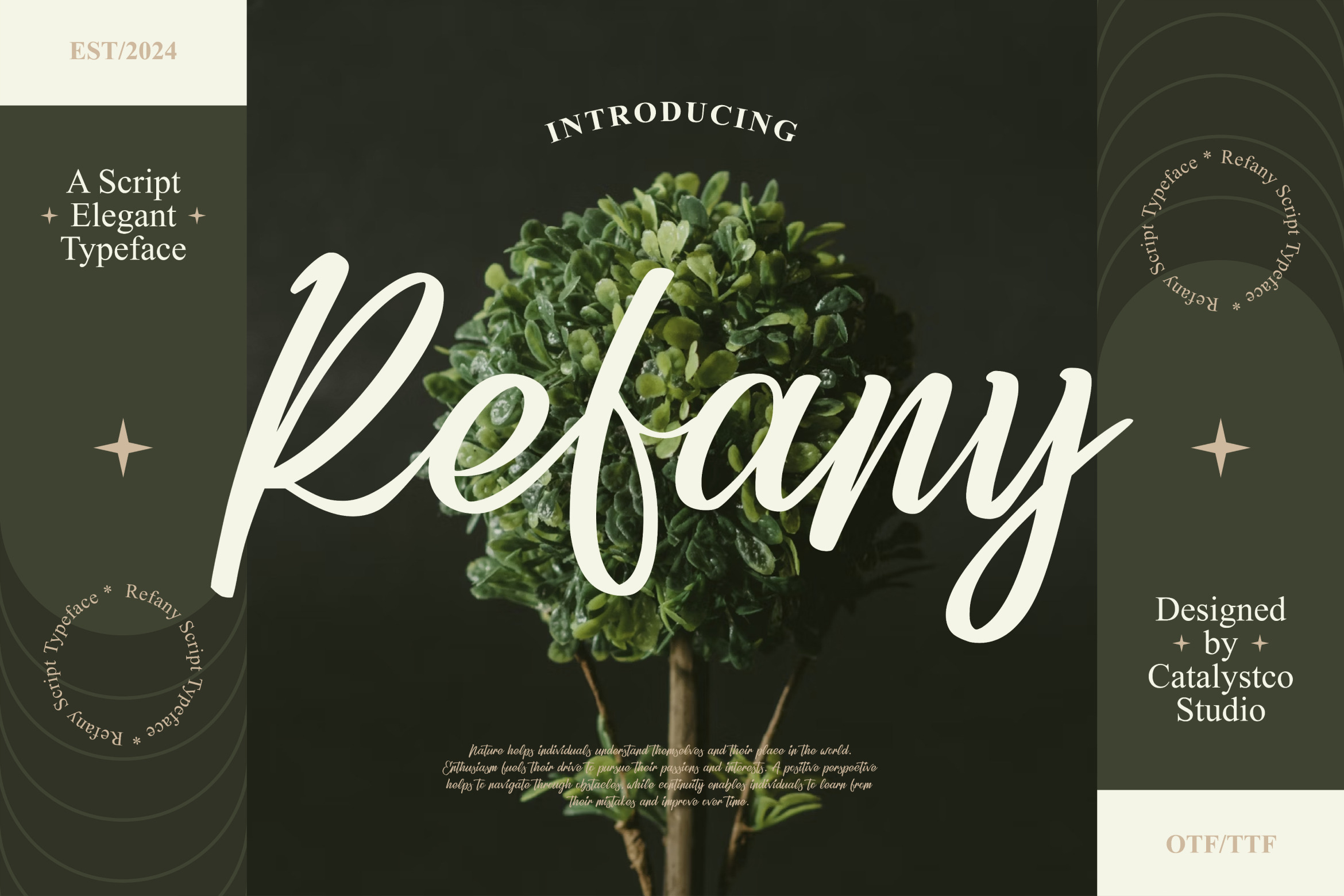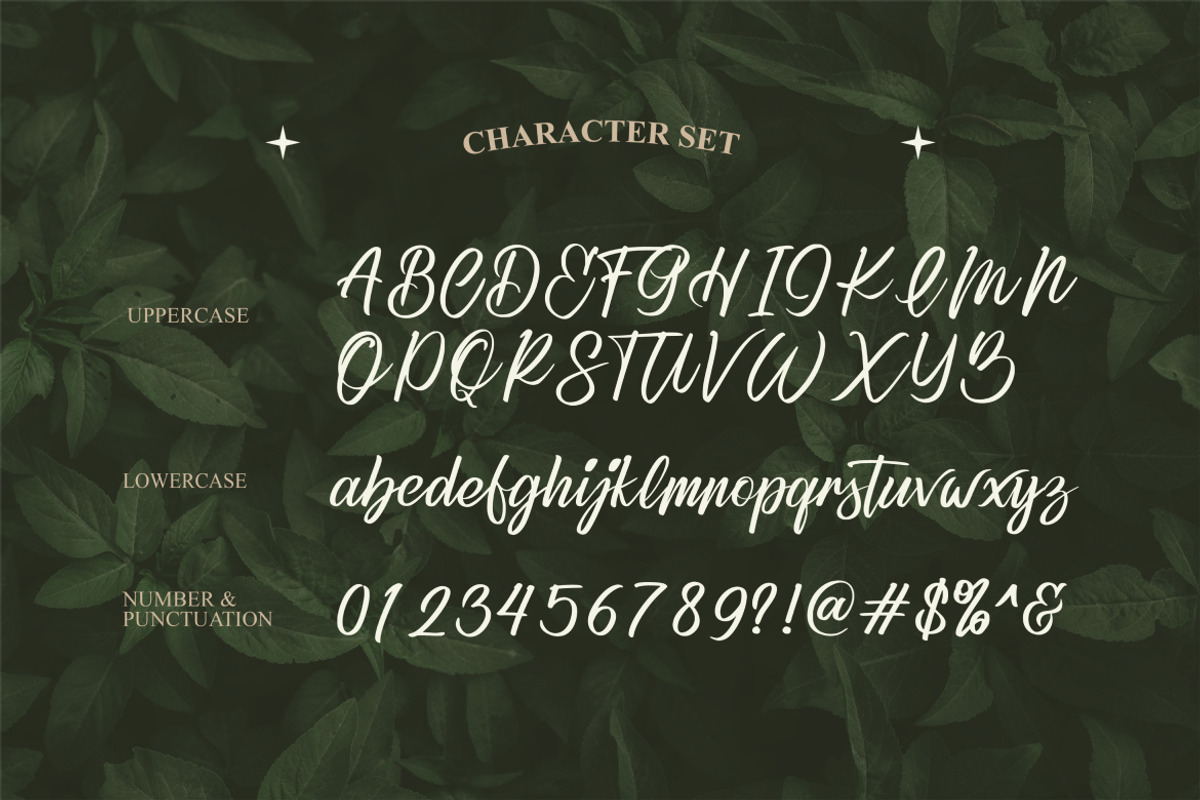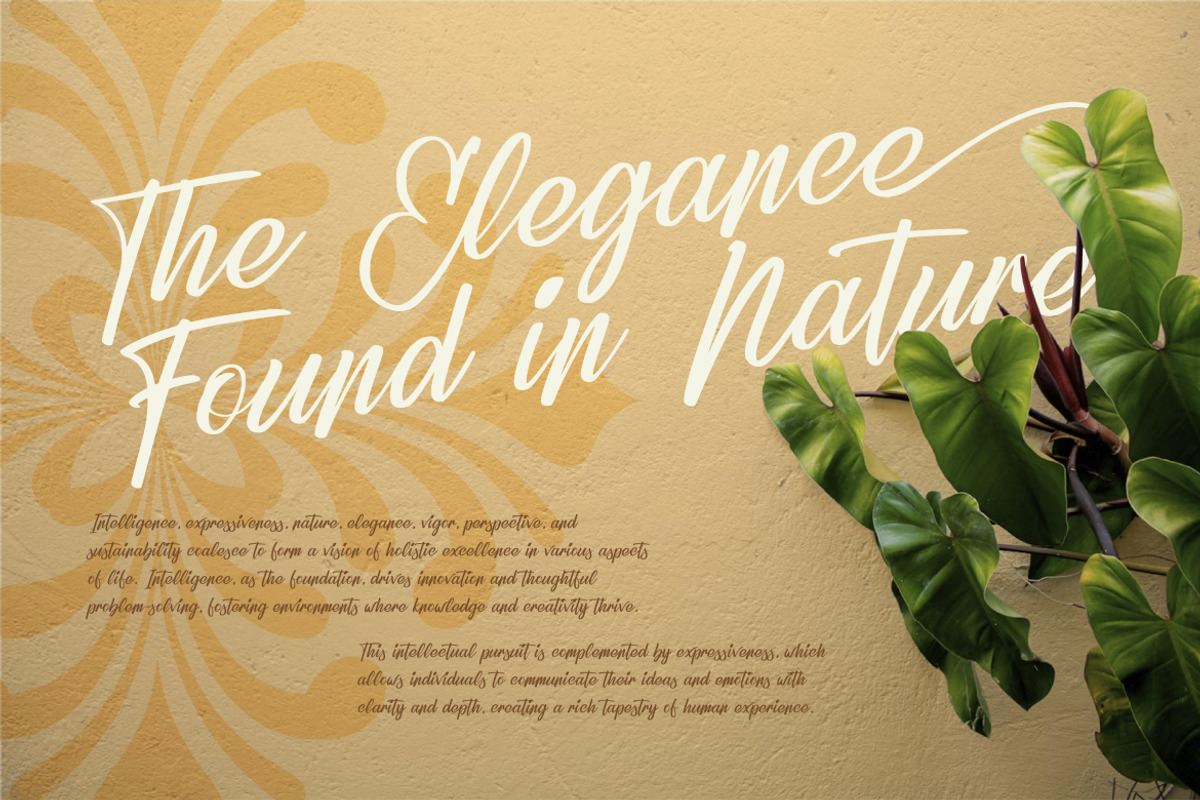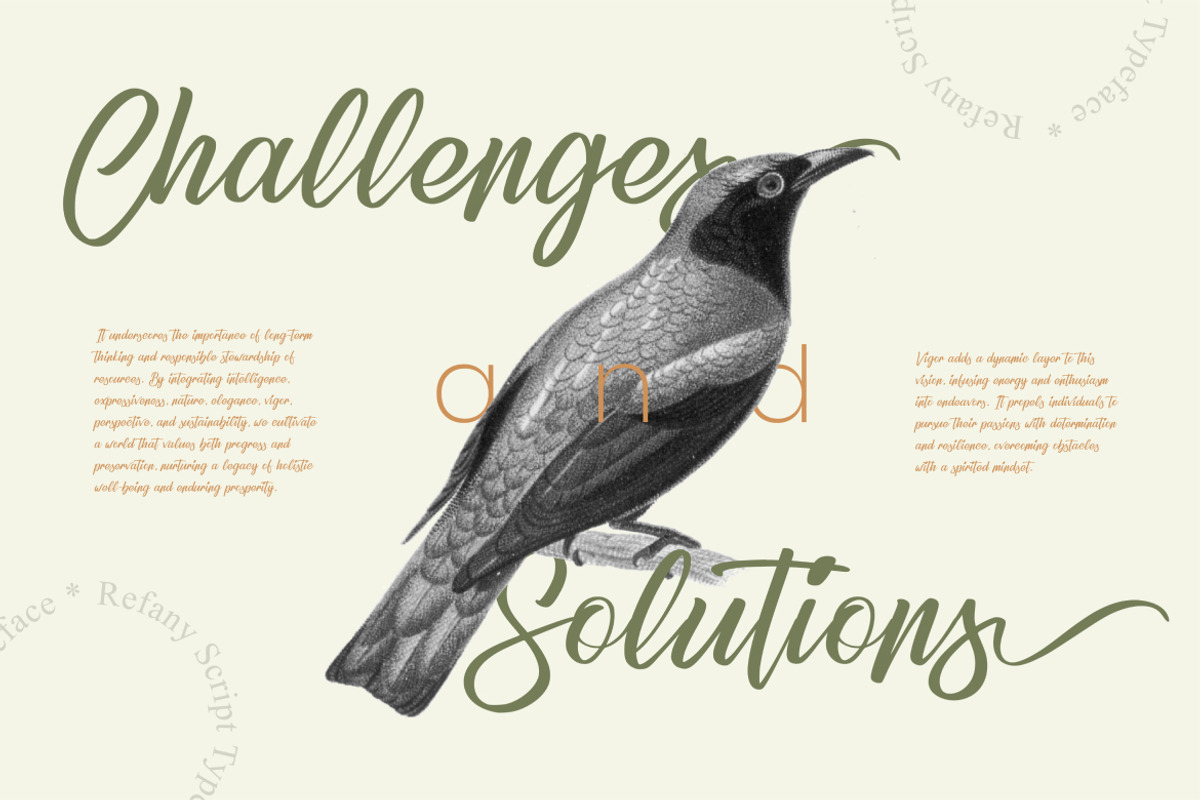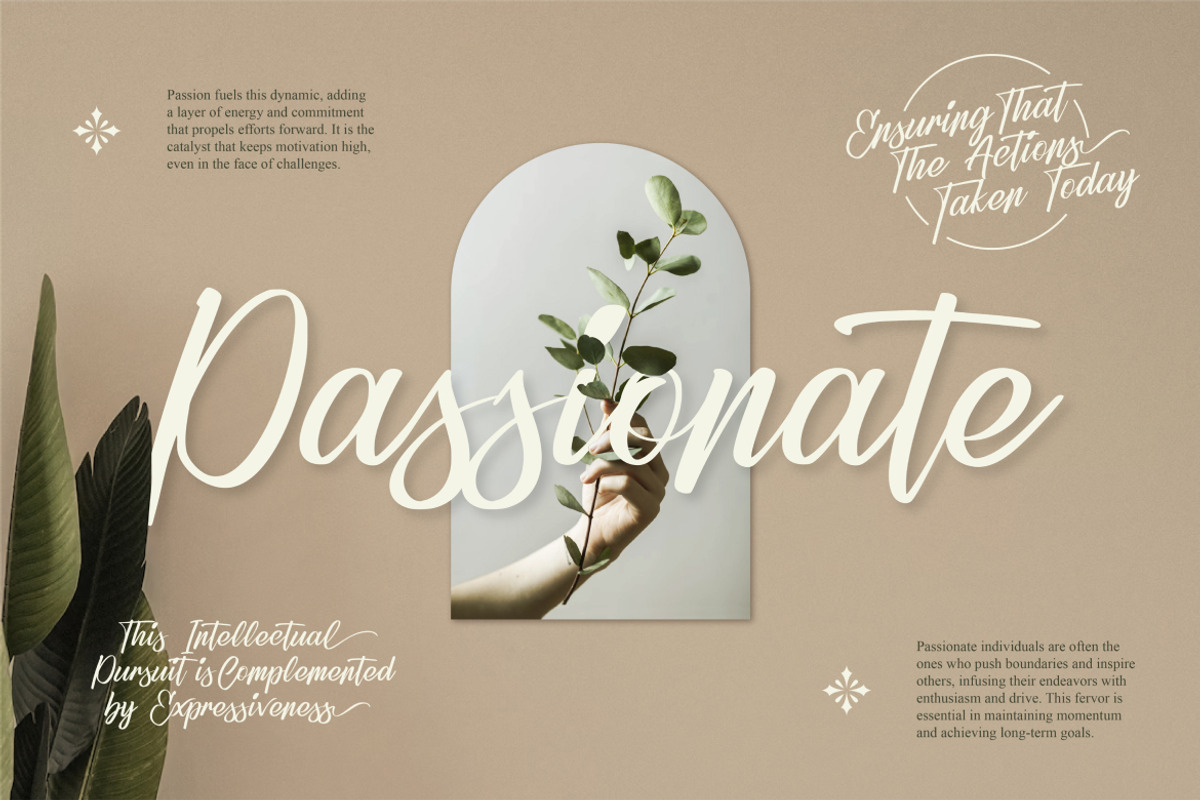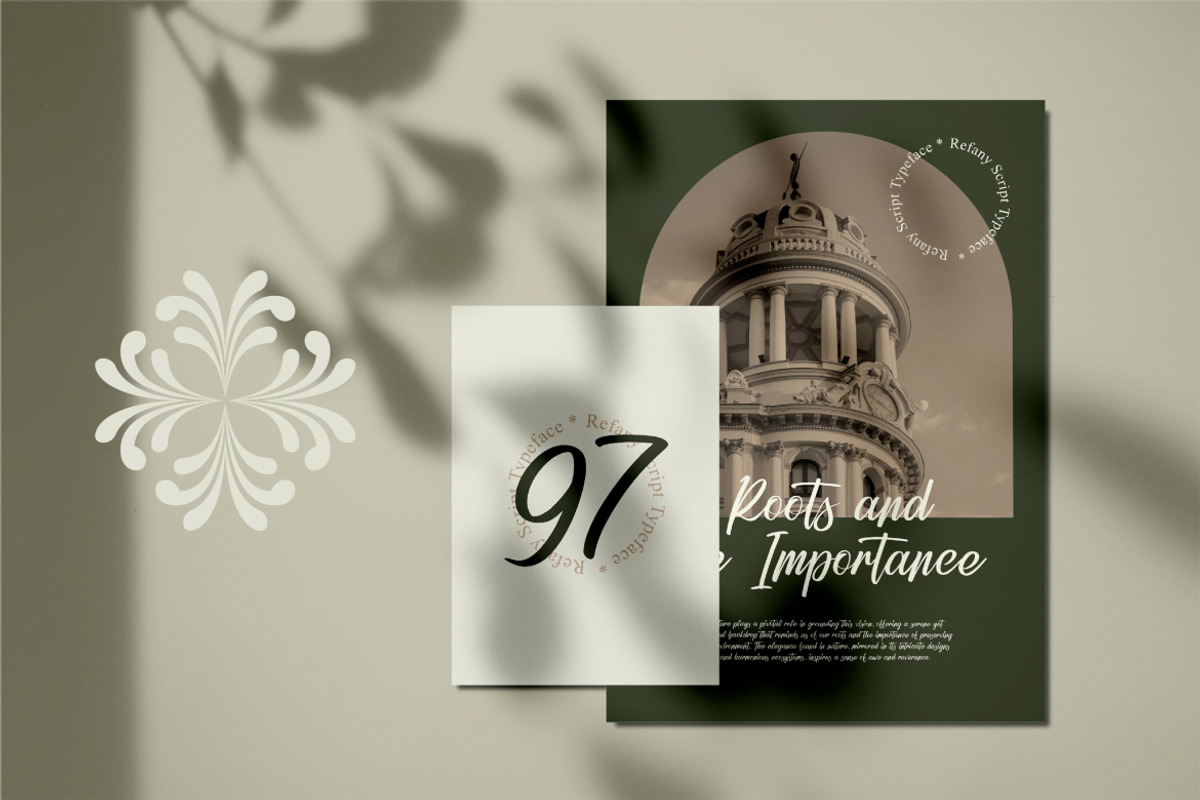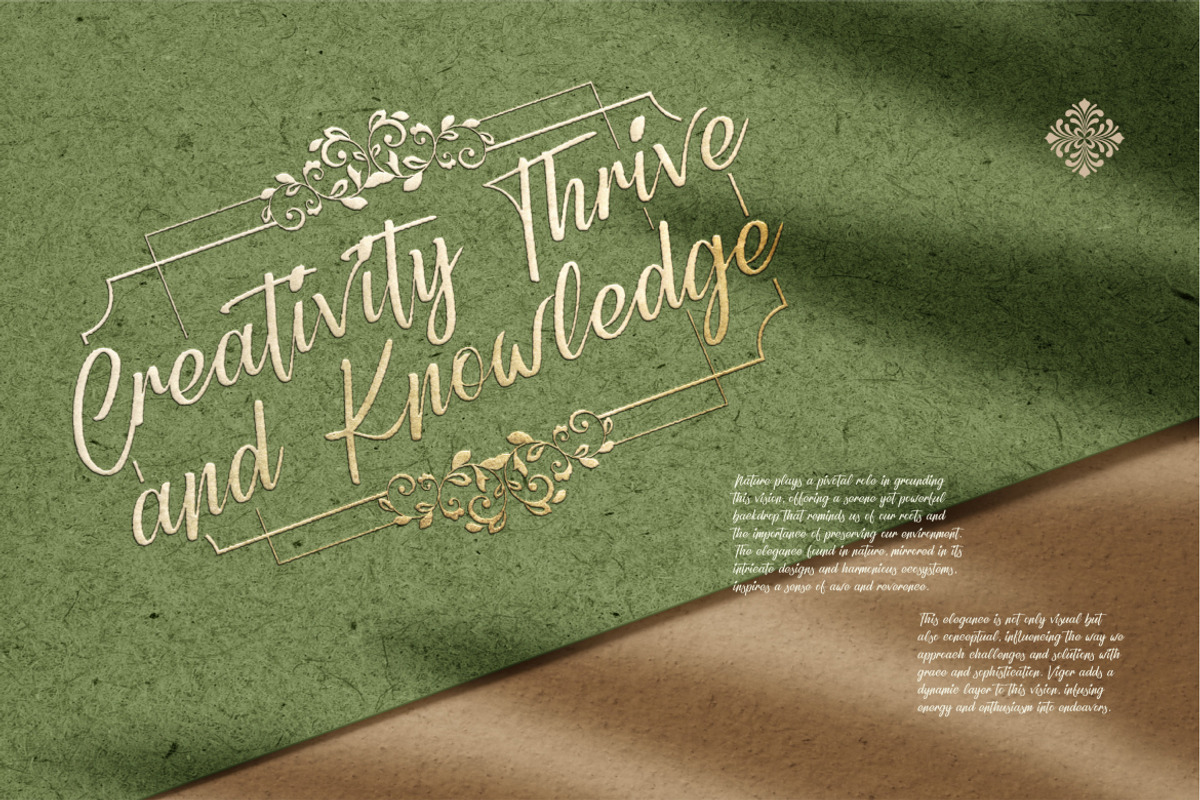
Refany Script Elegance Font
Refany Script Elegance Font typeface excellent used for the manufacture quote text, logotype, header magazine, and many more.
Main Features
- Numeral & Punctuations